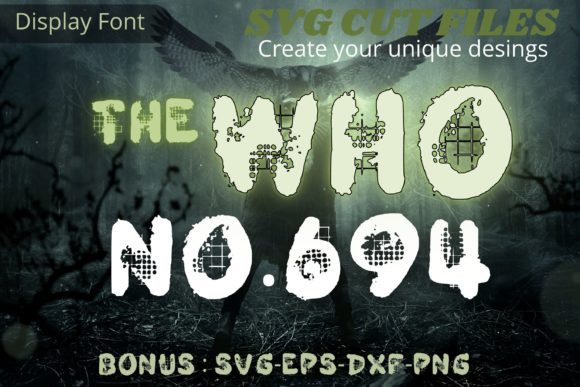
The Who: A Unique Halloween Font
If you're looking for a font that stands out and adds a touch of mystery, The Who is the perfect choice. This display font has a sketchy, creepy, and unique aesthetic that makes it ideal for a wide range of Halloween-related projects. Whether you're designing a blog post, logo, or invitation, The Who can elevate your creative work with its distinctive style.
What Makes The Who Stand Out?
The Who is not your average font. Its irregular shapes and uneven lines give it a hand-drawn, almost chaotic feel. This characteristic makes it perfect for themes that require a sense of unease or intrigue. Unlike clean, modern fonts, The Who brings a raw, edgy vibe that can capture attention in a way other fonts cannot.
Its design is reminiscent of old horror posters and vintage graffiti, which gives it a nostalgic yet contemporary appeal. The Who is especially effective when used in contrast with more structured text, allowing it to shine as a focal point in any design.
Key Characteristics and Strengths
One of the most notable qualities of The Who is its versatility. While it's often associated with Halloween, this font can be used in various contexts where a bold, unconventional look is desired. Its texture and weight make it suitable for both large headlines and smaller decorative elements.
The font’s irregularity also means it can add visual interest without overwhelming the viewer. When used sparingly, The Who can create a striking effect that draws the eye and enhances the overall design. It works well with dark color schemes, making it an excellent choice for spooky themes and seasonal promotions.
Practical Applications for The Who
The Who is incredibly useful for a variety of projects. For bloggers and publishers, it can be used in title headers or section dividers to create a more engaging layout. In marketing, it can help stand out in ads or social media posts, especially during Halloween or themed campaigns.
Entrepreneurs and small business owners can use The Who for branding materials such as logos, packaging, and promotional flyers. Its unique look helps establish a memorable identity, especially in industries that value creativity and individuality.
For educators and students, The Who can be a fun addition to classroom projects, presentations, or educational materials. It adds a playful element that can make learning more interactive and visually appealing.
Real-World Use Cases
Consider using The Who for a Halloween party invitation. Its eerie, hand-crafted appearance can set the tone for the event and make the invitation more memorable. Similarly, in a photo album or scrapbook, The Who can add a personal, artistic touch to captions or headings.
Designers working on digital projects can incorporate The Who into website headers, banners, or app interfaces. It can be used to highlight key messages or create a thematic atmosphere. For example, a website promoting a haunted house attraction could use The Who to reinforce the spooky theme.
Benefits of Using The Who
Using The Who can enhance the visual appeal of any project while adding a layer of personality. Its uniqueness helps differentiate designs from the competition, making it a valuable tool for creatives who want to stand out.
From a usability perspective, The Who is easy to implement once you understand how it interacts with other design elements. It doesn’t require complex formatting and can be used across different platforms and mediums. This makes it a practical choice for both digital and print projects.
Things to Consider When Using The Who
While The Who is powerful, it’s important to use it thoughtfully. Overusing it can make a design feel cluttered or unprofessional. It’s best to pair it with simpler fonts to maintain balance and readability.
Also, consider the context in which it will be used. The Who may not be suitable for formal or corporate environments where a more polished look is required. However, in creative or casual settings, it can be a strong asset.
Before finalizing a design, test The Who in different sizes and layouts to ensure it reads well and maintains its intended impact. This will help avoid issues like poor legibility or unintended visual effects.
Final Thoughts on The Who
The Who is more than just a font—it’s a creative tool that can bring a new dimension to your work. Its sketchy, creepy, and unique style makes it ideal for Halloween projects and beyond. Whether you’re a designer, marketer, educator, or hobbyist, The Who offers a fresh and compelling way to express your ideas.
By incorporating The Who into your designs, you can add a sense of character and originality that sets your work apart. With careful application, this font can become a signature element that enhances both the aesthetics and effectiveness of your projects.